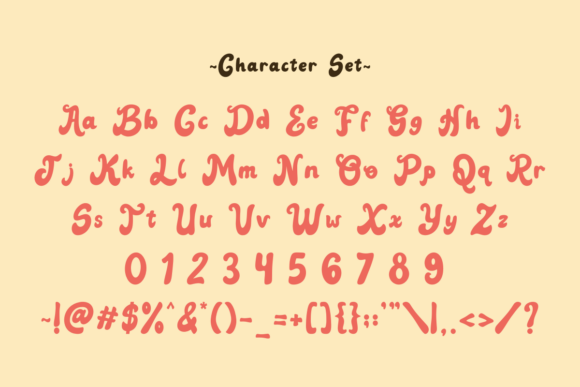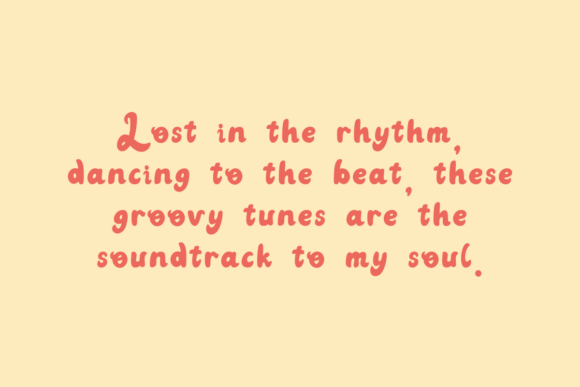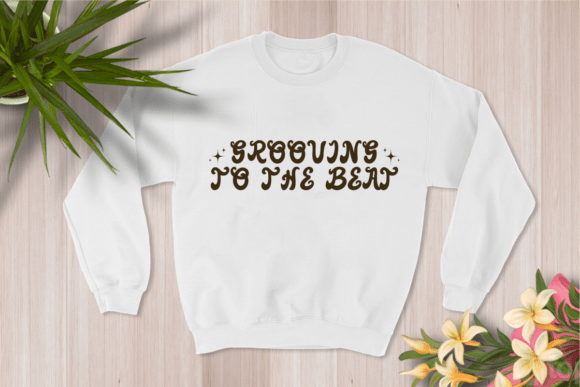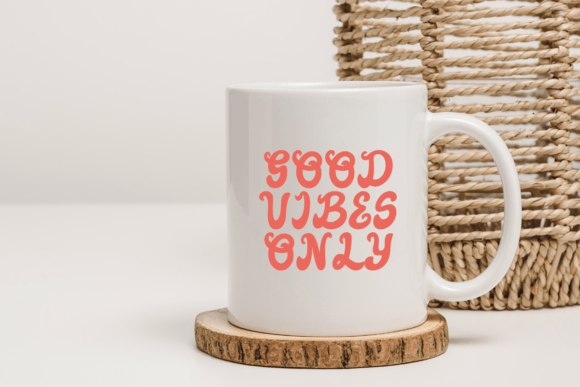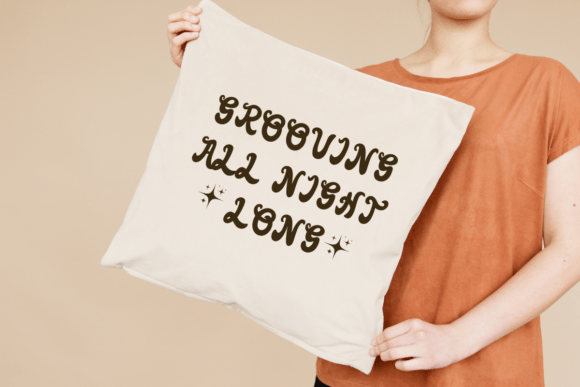
Groovy Tunes Font: The Ultimate Retro-Inspired Script for Creative Projects
Are you looking for a font that adds a dash of personality and charm to your creative projects? Look no further than Groovy Tunes, a retro-inspired and playful script font that’s perfect for designers, crafters, and DIY enthusiasts. With its smooth, stylish script and nostalgic vibe, Groovy Tunes is ideal for a wide range of applications, from crafting and branding to KDP interior designs and product promotions.
What Makes Groovy Tunes So Special?
Groovy Tunes is more than just a font – it’s an experience. Its retro-inspired design evokes the fun and playfulness of the past, while its smooth, stylish script ensures that your designs look modern and sophisticated. Whether you’re creating planner designs, logos, greeting cards, or merchandise, Groovy Tunes adds a touch of personality and whimsy that sets your work apart.
Groovy Tunes is a versatile font that’s perfect for designers and crafters who want to add a personal touch to their work. Its smooth, flowing script is easy to read and looks great in a variety of contexts, from digital designs to print materials. Whether you’re creating:
• Planner designs: Add a fun and playful touch to your planners and organizers with Groovy Tunes.
• Logos: Create eye-catching logos that showcase your brand’s personality and style.
• Greeting cards: Add a personal touch to your greeting cards and make them stand out.
• Merchandise: Create fun and stylish merchandise that showcases your brand’s personality.
• Product promotions: Add a touch of nostalgia and whimsy to your product promotions and make them more engaging.
Why Choose Groovy Tunes?
So why choose Groovy Tunes for your creative projects? Here are just a few reasons:
• Unique and Eye-Catching: Groovy Tunes adds a touch of personality and whimsy to your designs, making them stand out from the crowd.
• Versatile: Groovy Tunes is perfect for a wide range of applications, from digital designs to print materials.